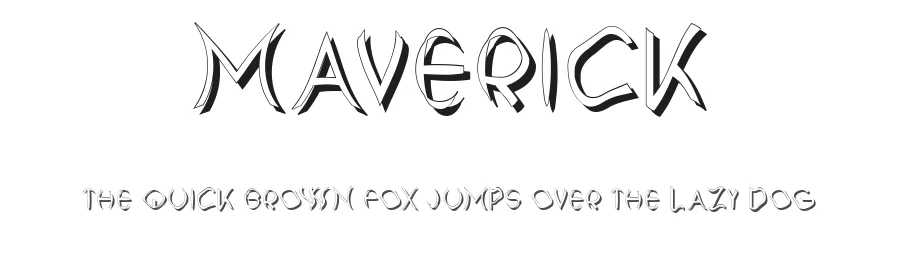
About Ice Sticks Font
Ice Sticks is a decorative font designed by Fontilizer. It includes 80 glyphs, a regular weight, TTF (TrueType) format, and 104 languages. Ice Sticks is free to download; check the license details on this page before commercial use. Decorative fonts like Ice Sticks work best for logos, posters, packaging, and standout headlines.
Ice Sticks Font is a decorative font that shines as a display or heading face. Pair it with a clean sans-serif or serif font for body text β the contrast creates a clear hierarchy while the two styles stay balanced and easy to read.
Ice Sticks Font
Ice Sticks Font is a decorative typeface by Fontilizer, ideal for logos, invitations, branding, and creative projects.